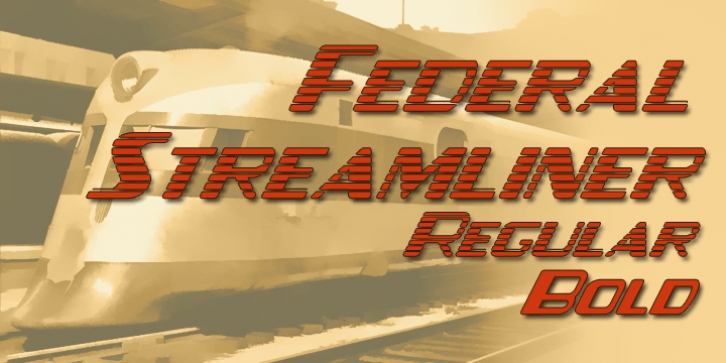
Federal Streamliner is a retro font family. This typeface has two styles and was published by Greater Albion Typefounders.
Federal Streamliner was inspired by lettering senn on the side of a 1950’s/60’s era train. It speaks of the designs of the ‘streamline’ era and is ideal for retro projects invoking the 30’s, 50’s or 60’s needing a simple distinctive display face.